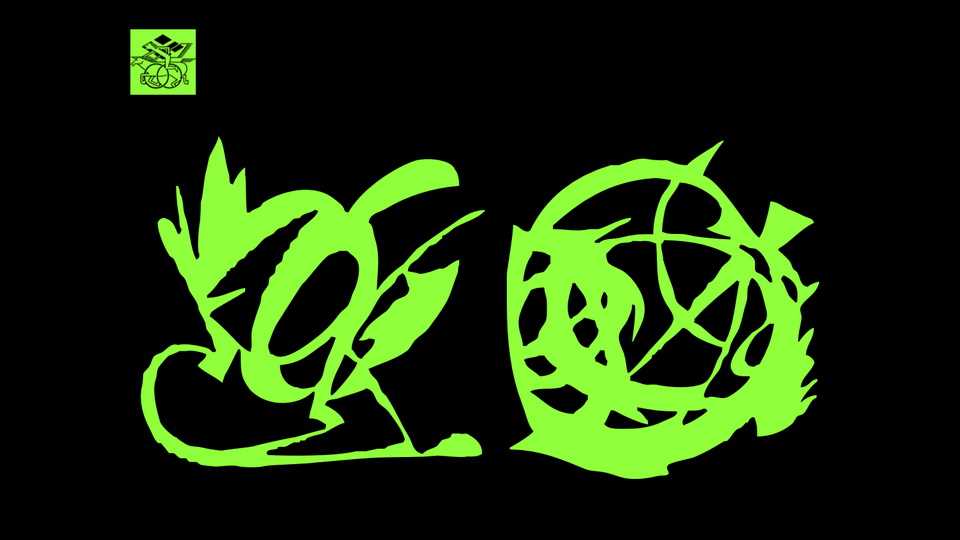
Download Mess font, a unique display typeface that speaks for itself. Mess is holding a clandestine meeting at the deep inside of font file and plan a sabotage
Designer: Tezzo Suzuki